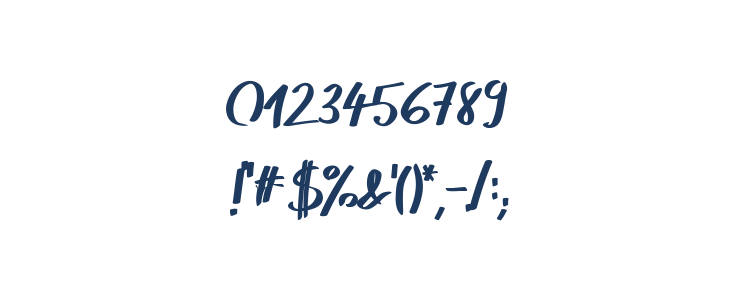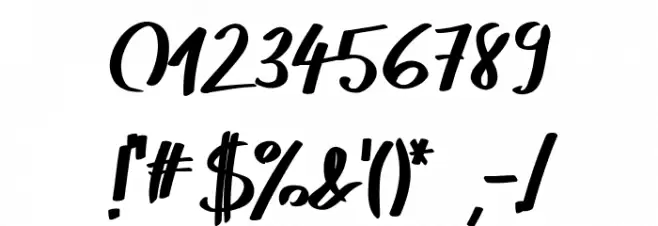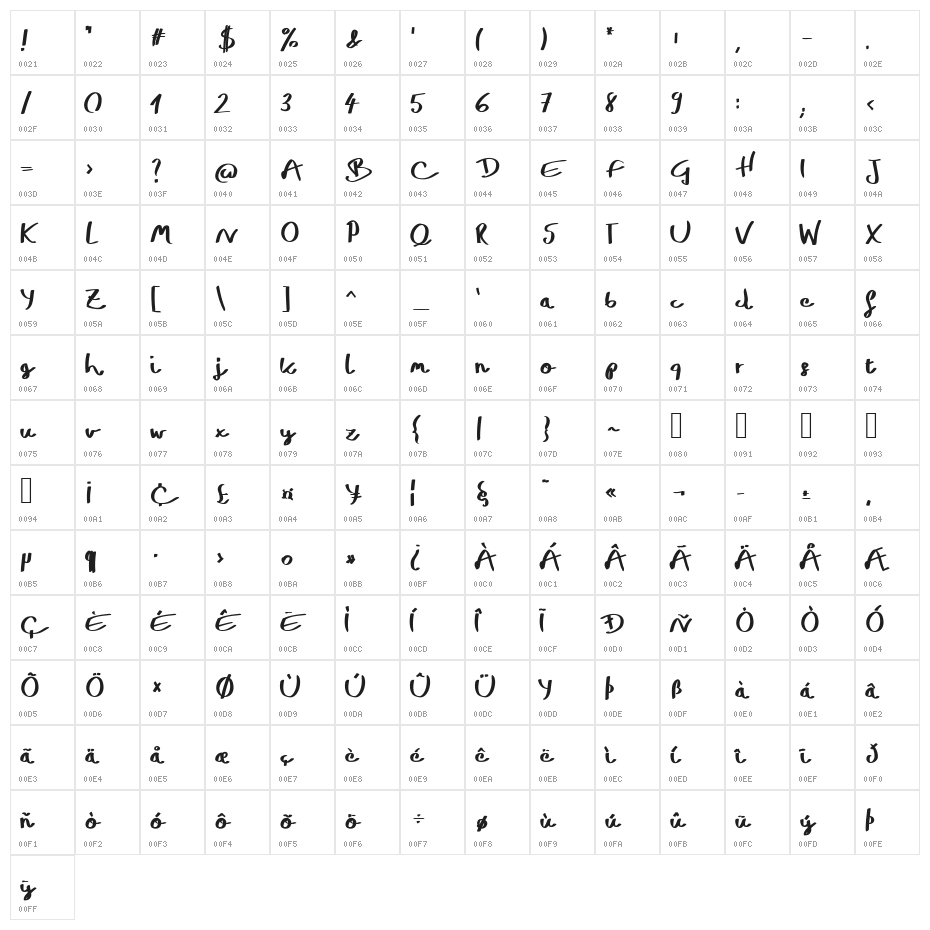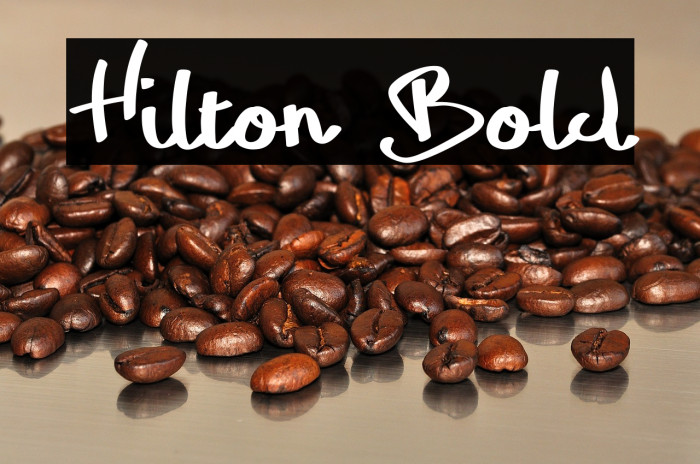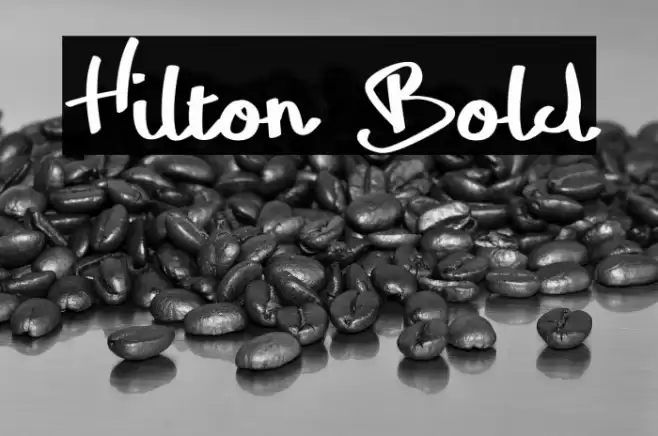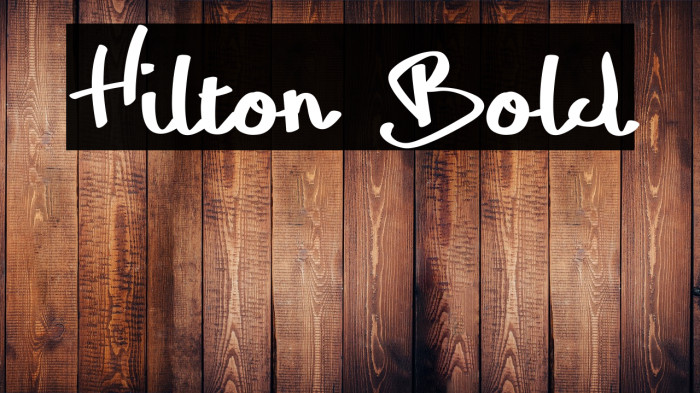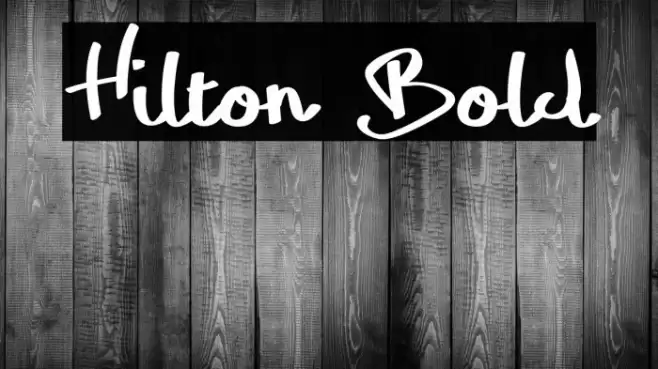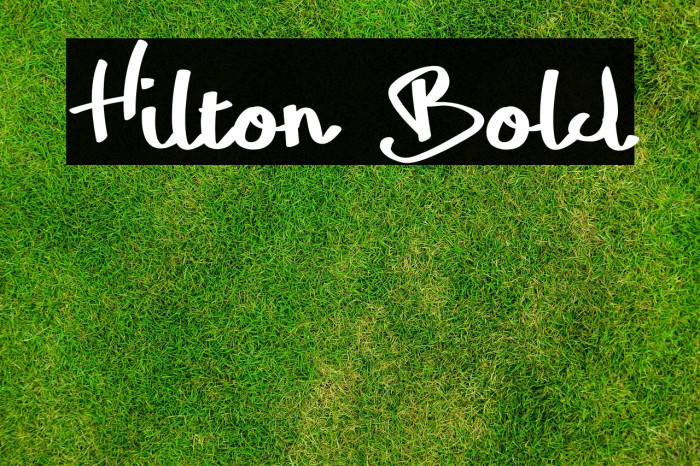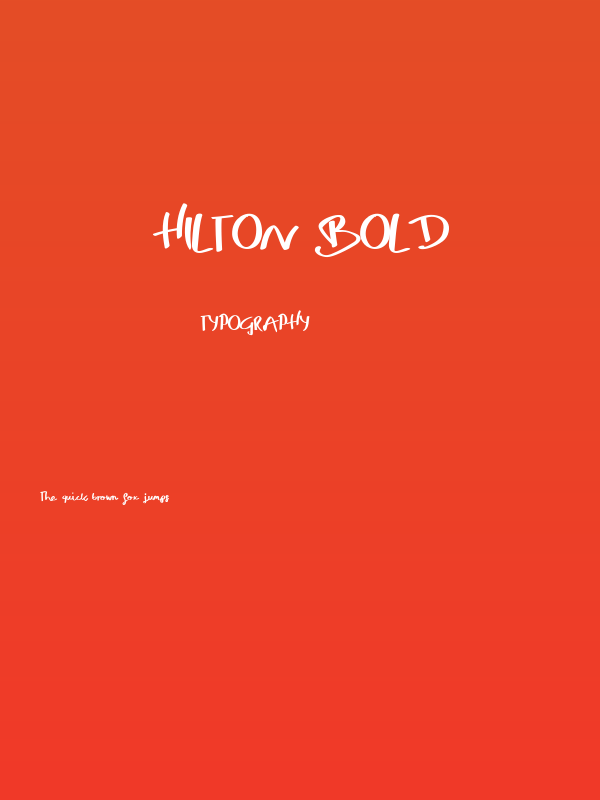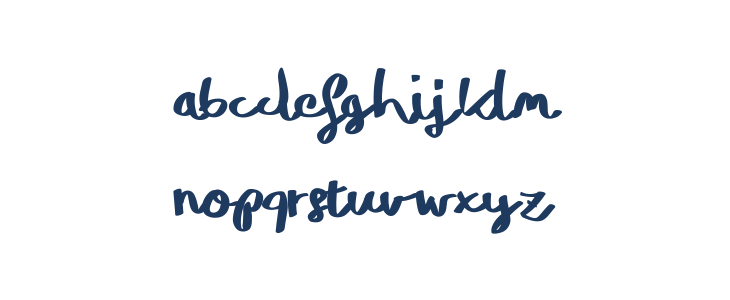
Hilton Bold Font
Hilton Bold Description
This font features a bold and expressive handwritten style, characterized by its fluid and dynamic strokes. The uppercase letters exhibit a playful yet sophisticated flair, with varying stroke widths that add a sense of movement and energy. The lowercase letters maintain a consistent flow, enhancing readability while preserving the font's artistic essence. Numbers are bold and clear, making them suitable for various applications. Special characters are creatively designed, complementing the overall aesthetic. This font is ideal for projects that require a personal touch, such as invitations, branding, and creative headlines.